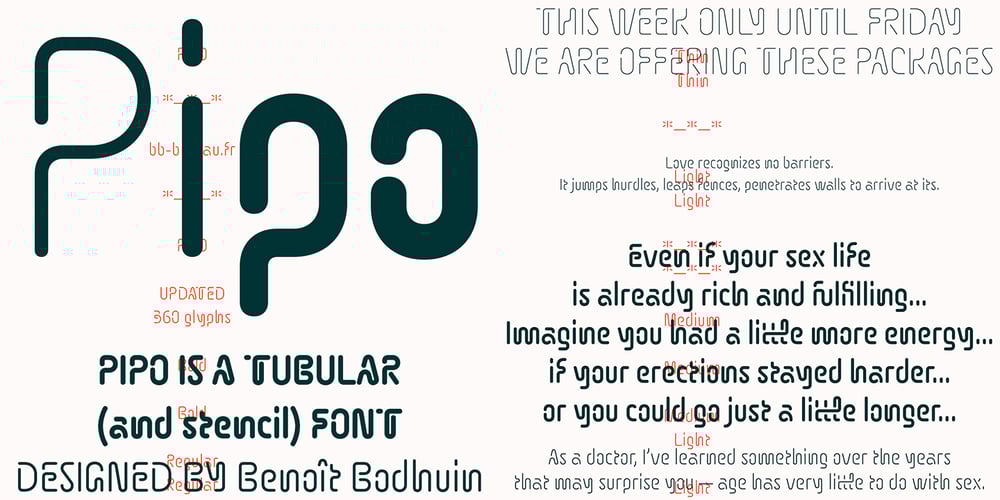
Pipo Font Family was designed by Benoît Bodhuin and published by bb-bureau. Pipo contains 5 styles and family package options. Pipo is a minimalist rounded tubular and stencil font in 5 weights (Thin, Light, Regular, Medium & Bold) — many symbols and cleverly ligatured!language: all latin glyphs